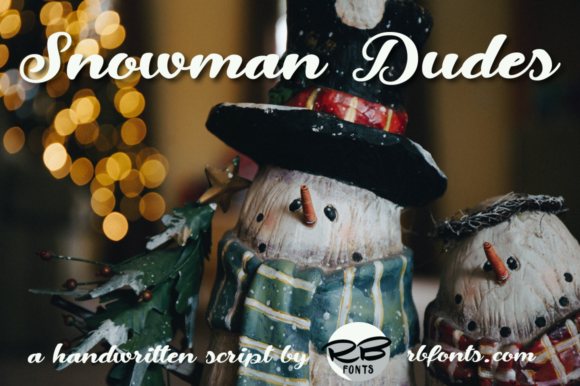
**Snowman Dudes Font: Spread Holiday Cheer with Playful and Bold Calligraphy**
Prepare to be enthralled by Snowman Dudes Font, a charming and vibrant script font that will bring festive magic to your winter designs. This enchanting creation by rbfonts is meticulously handcrafted, brimming with a spirited and joyful personality that will captivate you and your audience.
**A Festive Canvas for Your Winter Creations**
Whether you're crafting heartwarming Christmas letters, designing eye-catching holiday cards, or embracing the winter spirit in your branding, Snowman Dudes Font is your perfect companion. Its bold and whimsical strokes create an instant atmosphere of warmth and cheer, evoking the playful spirit of the season.
**Versatile and Endlessly Creative**
The versatility of Snowman Dudes Font extends beyond seasonal designs. Its lively character adds a touch of whimsy to invitations, quotes, and even product packaging. Unleash your imagination and see how this font transforms your creations into works of art.
**Experience the Magic of Snowman Dudes Font**
- **Handcrafted with Love:** Every curve and stroke of Snowman Dudes Font is meticulously crafted, ensuring a unique and authentic touch to your designs.
- **Bold and Joyful Personality:** Its cheerful and playful character will infuse your creations with a sense of warmth and celebration.
- **Seasonal Spirit:** Embrace the festive spirit and let Snowman Dudes Font bring the magic of Christmas to your designs.
- **Versatile and Creative:** Its versatility allows you to explore endless creative possibilities, from heartwarming letters to eye-catching branding.